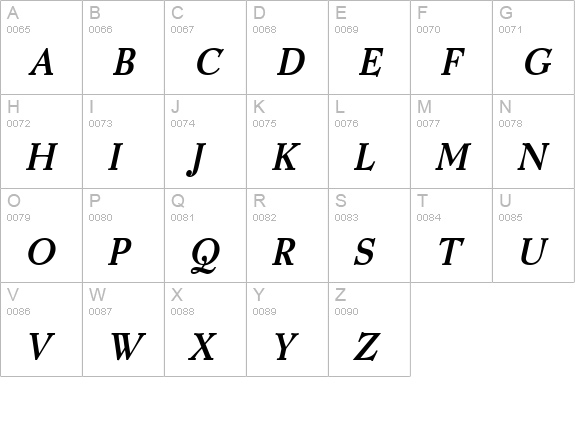
Luciano Condensed BoldItalic is a distinctive, condensed-width variant in the Luciano typeface family \xE2\x80\x94 well suited to design and typography projects.
Luciano Condensed BoldItalic font exudes a sense of bold elegance and sophistication with its sleek and modern design. The combination of condensed letterforms and italic styling adds a touch of flair and dynamism to any text. Perfect for making a statement or grabbing attention, Luciano Condensed BoldItalic is a versatile typeface that can be used for a variety of design projects. Best of all, Luciano Condensed BoldItalic font is available for free download at FontsMarket.com. Whether you're working on branding, advertising, or editorial projects, this font will elevate your designs and leave a lasting impression. Don't miss out on the opportunity to add this stunning typeface to your collection and enhance your creative projects with its distinctive style and presence. Download Luciano Condensed BoldItalic font today and take your designs to the next level.